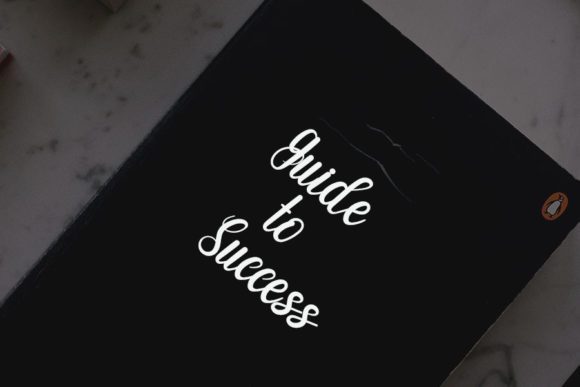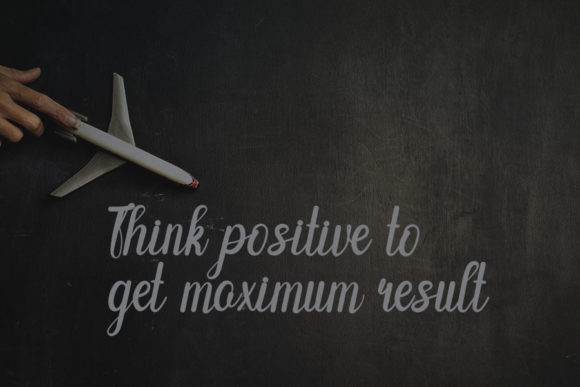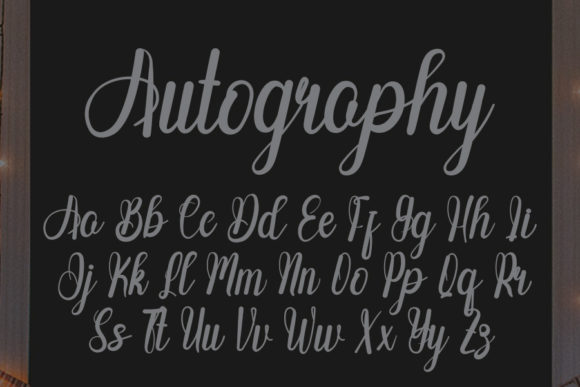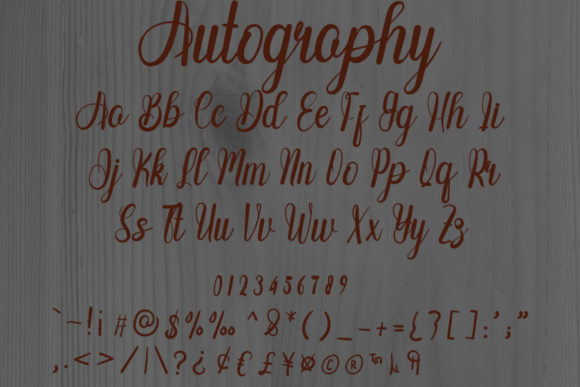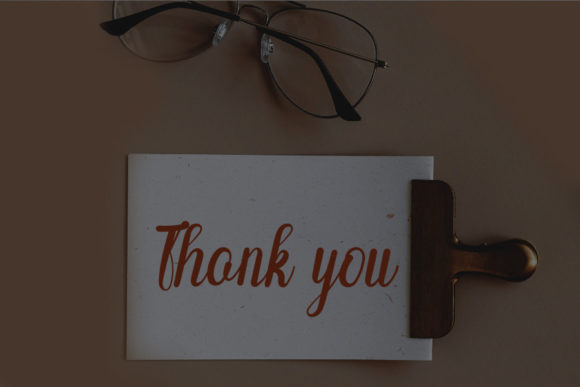
Introducing Autography Font: Elevate Your Designs with a Touch of Modern Elegance
Are you on the lookout for a font that combines the charm of classic calligraphy with a modern twist? Look no further than Autography Font. This stunning handwritten font is designed to bring a touch of sophistication and elegance to your projects, making it perfect for designers and crafters alike.
The Inspiration Behind Autography Font
Autography Font draws inspiration from traditional calligraphy, but with a modern spin. The result is a font that exudes a sense of freshness and contemporary style, making it ideal for a wide range of design applications. Whether you’re working on a branding project, a wedding invitation, or a social media graphic, Autography Font is sure to make your designs stand out.
What Sets Autography Font Apart
So, what makes Autography Font so special? Here are just a few of its standout features:
- Balanced and varied: Autography Font strikes the perfect balance between thick and thin lines, creating a sense of harmony and visual interest.
- Modern vibe: With its clean lines and fresh feel, Autography Font is perfect for designers who want to add a touch of modernity to their work.
- Spotless form: The font’s sleek and refined design makes it perfect for use in a variety of applications, from digital media to print materials.
- Handwritten charm: Autography Font’s handwritten feel adds a touch of personality and warmth to any design, making it perfect for projects where you want to connect with your audience.
Autography Font is a versatile font that’s perfect for a wide range of design applications. Here are just a few ways you can use it:
- Branding and logos: Use Autography Font to create a unique and memorable brand identity that stands out from the crowd.
- Wedding and event invitations: Add a touch of elegance and sophistication to your wedding or event invitations with Autography Font.
- Social media graphics: Use Autography Font to create eye-catching social media graphics that grab attention and drive engagement.
- Packaging and product design: Add a touch of personality and style to your packaging and product designs with Autography Font.
Tips for Using Autography Font
Here are a few tips for getting the most out of Autography Font:
- Experiment with different sizes: Autography Font looks great in a variety of sizes, so don’t be afraid to experiment and find the perfect size for your project.
- Pair it with other fonts: Autography Font pairs well with a range of other fonts, so try combining it with different fonts to create a unique look.
- Use it consistently: To create a cohesive look, use Autography Font consistently throughout your design.